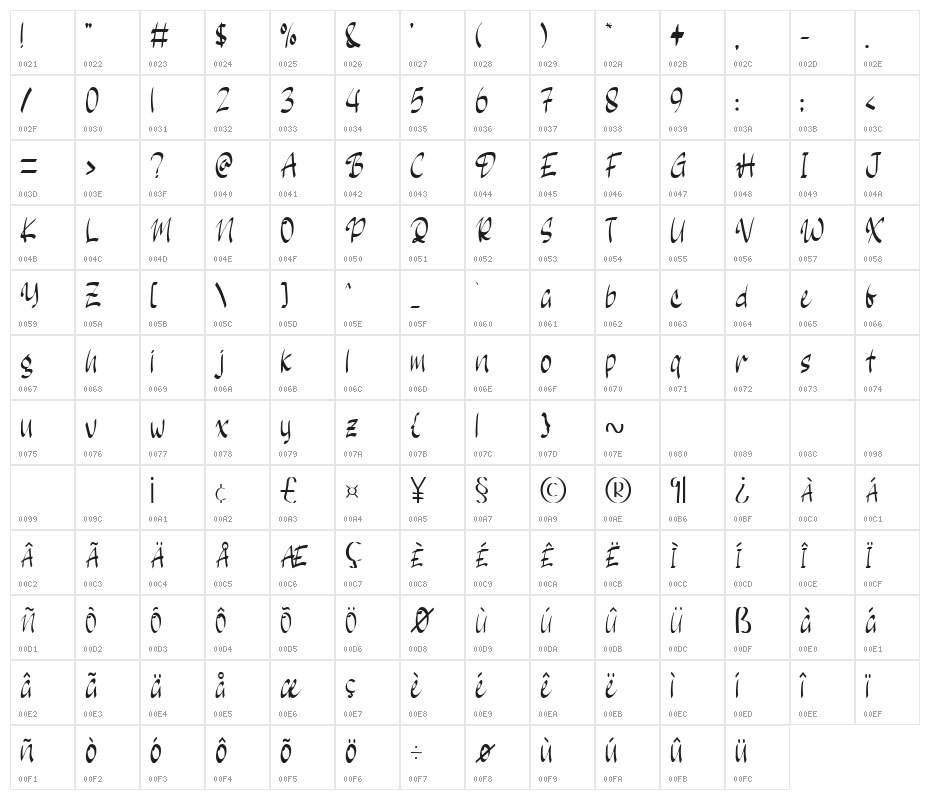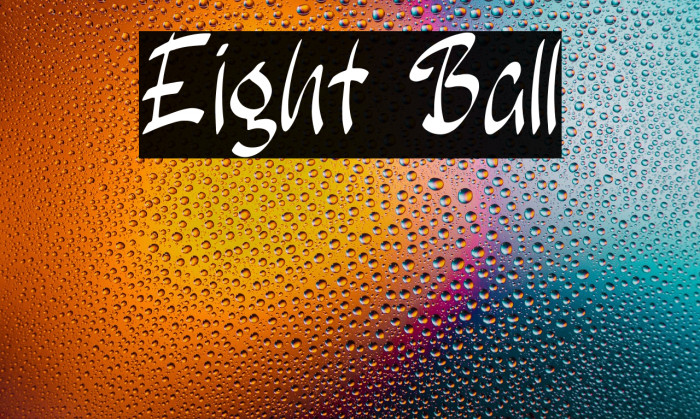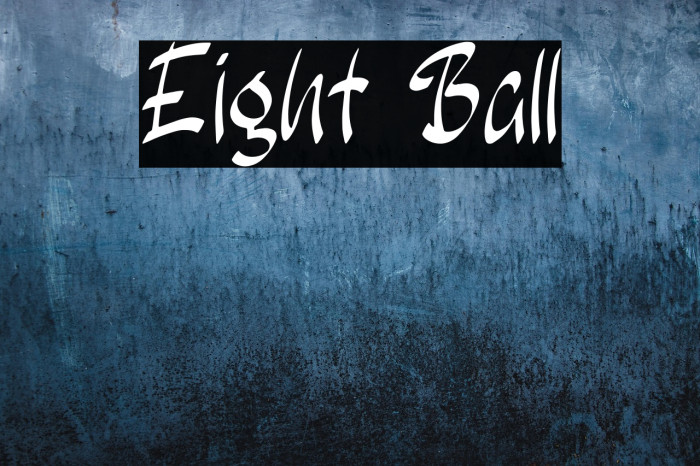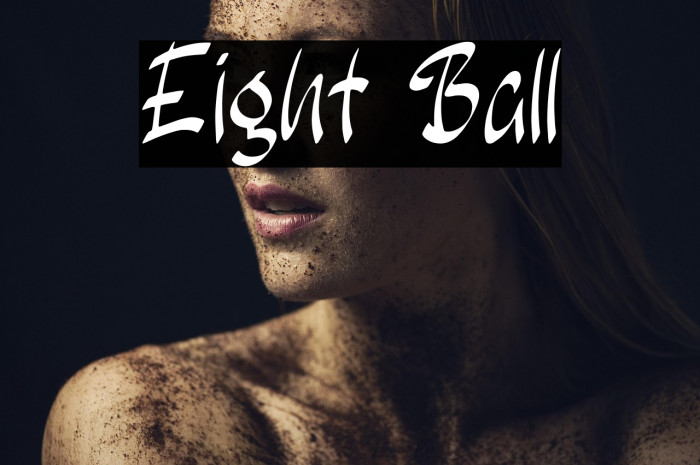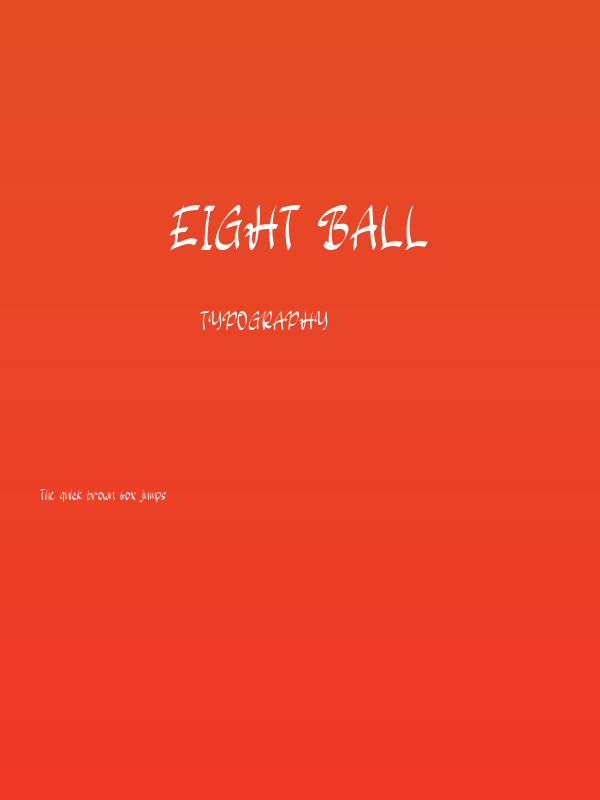
Eight Ball Font
Eight Ball Description
This font features a dynamic and energetic script style, characterized by its fluid and slightly irregular strokes that mimic a handwritten appearance. The uppercase letters are bold and sweeping, with a playful flair that adds a sense of movement and spontaneity. The lowercase letters maintain this lively aesthetic, with smooth curves and varying stroke widths that enhance its informal and artistic feel. Numbers and special characters are crafted with the same attention to detail, ensuring consistency across all glyphs. The overall impression is one of creativity and expressiveness, making it ideal for projects that require a personal touch.
| Use Case | Logos, Invitations, Artistic Posters |
| Proposed Projects | Ideal for greeting cards, invitations, artistic posters, and branding materials that require a personal and creative touch. |